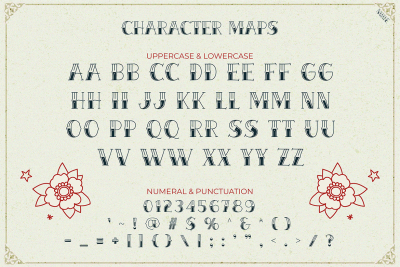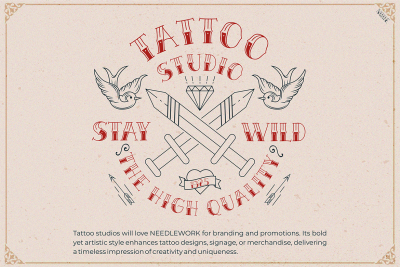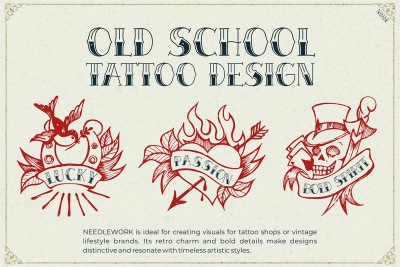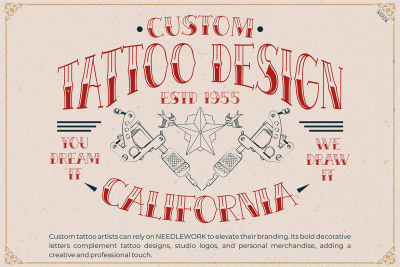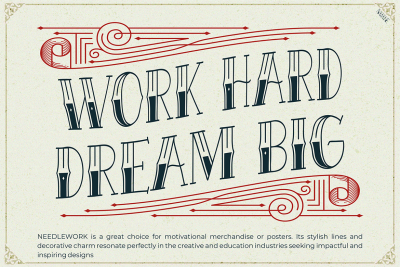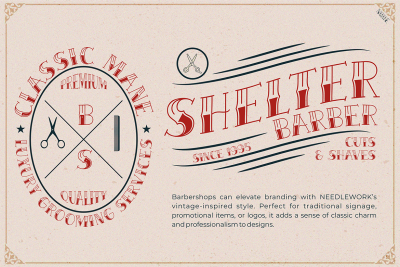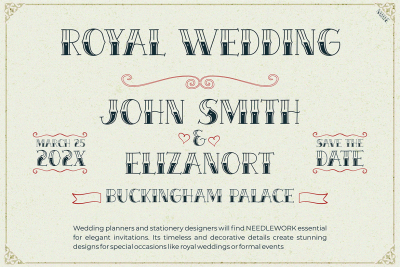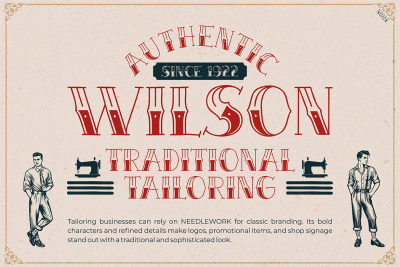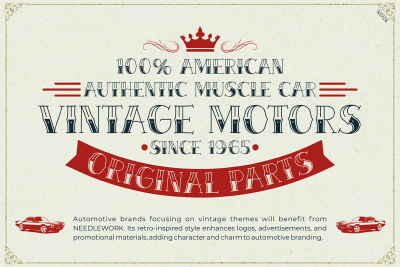
Tattoo Font Needlework is a bold and distinctive typeface inspired by traditional tattoo aesthetics and vintage illustration styles. Its sharp edges and handcrafted design reflect the rebellious and artistic spirit of tattoo culture. The font combines elegant curves, dramatic serifs, and intricate details to stand out in any design. Each letter features diamond-shaped motifs, adding a decorative and eye-catching touch that enhances its uniqueness.
This font balances modern and classic design elements, making it versatile for various projects. It works well in headlines, logos, and posters where a bold impact is essential. Additionally, its handcrafted look pairs beautifully with both minimalistic and elaborate compositions. Whether used for print or digital media, Tattoo Font Needlework brings energy and personality to your designs.
The typeface is not only visually striking but also highly adaptable. It excels in projects tied to tattoo culture while also fitting broader creative needs. By blending boldness with refinement, it appeals to a range of aesthetics, from edgy and rebellious to vintage and elegant. Its unique features make it a great choice for designers looking to stand out.
Tattoo Font Needlework Best Suited For
Tattoo Font Needlework is perfect for designers, tattoo artists, and branding specialists. It is particularly appealing to those targeting alternative subcultures, including tattoo enthusiasts, rock and roll fans, and vintage lovers. For example, it works great for creating apparel, event posters, or promotional materials that demand a bold artistic flair.
This typeface is also suitable for broader purposes. Wedding invitations with a bold twist, indie band album covers, or vintage cafรฉ signage can all benefit from its dynamic style. Additionally, professionals in the entertainment industry, such as event organizers or movie poster designers, will find it effective for bold and memorable designs.
Above all, Tattoo Font Needlework empowers creatives to add artistry and individuality to their work. It provides the perfect balance between aesthetics and impact, making it ideal for striking and unforgettable designs.